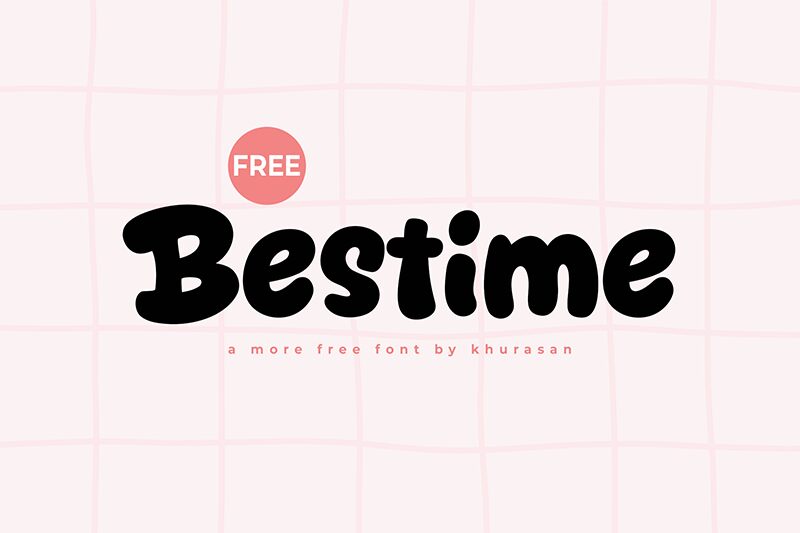
Bestime
Bestime font is a cartoon display font developed by Khurasan with bold characters that reflect its casual and contemporary style. The bubbly letter shapes constructed from curvy lines allow the design to appear friendly and approachable. Use this free font in your next branding, advertising, or other projects.